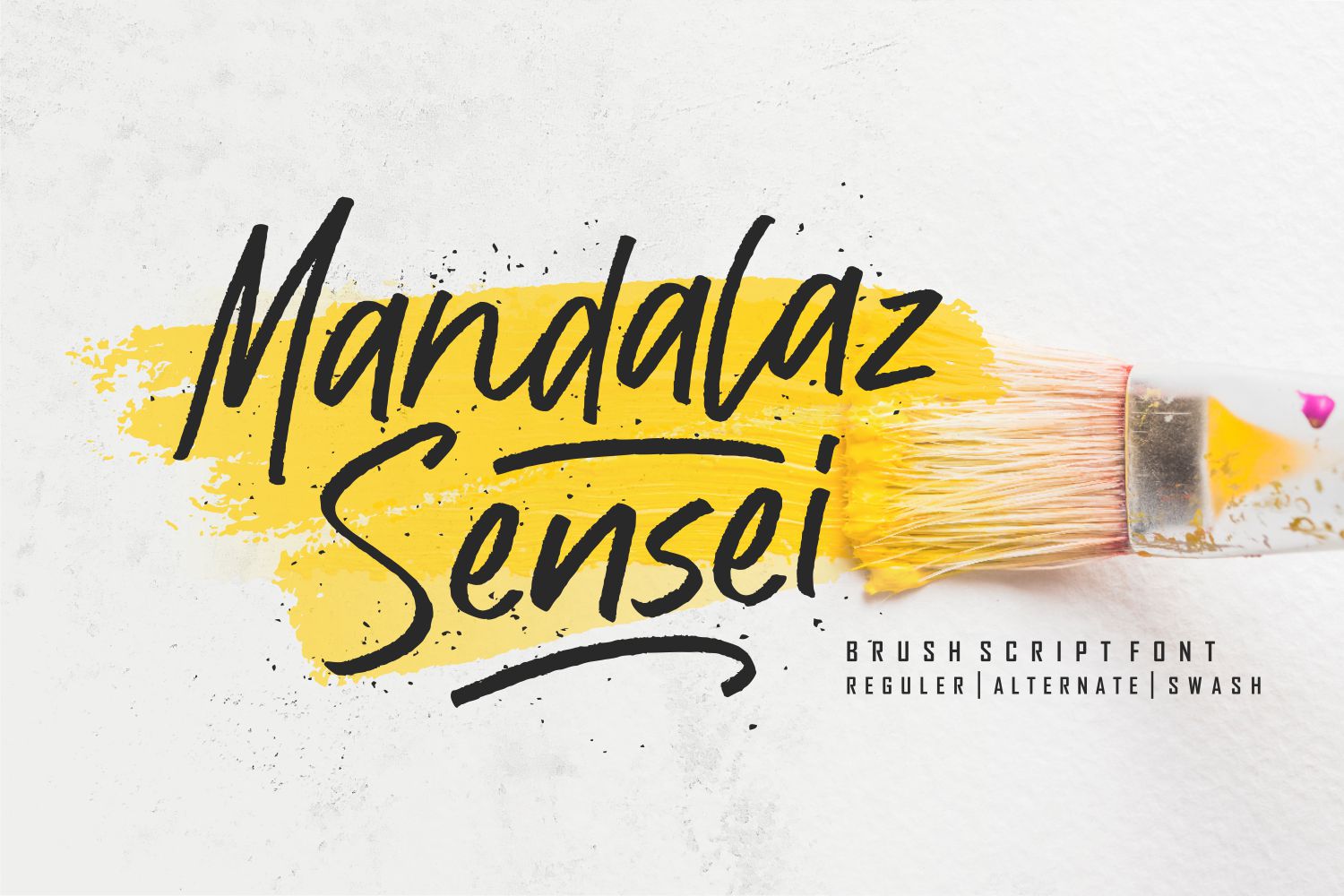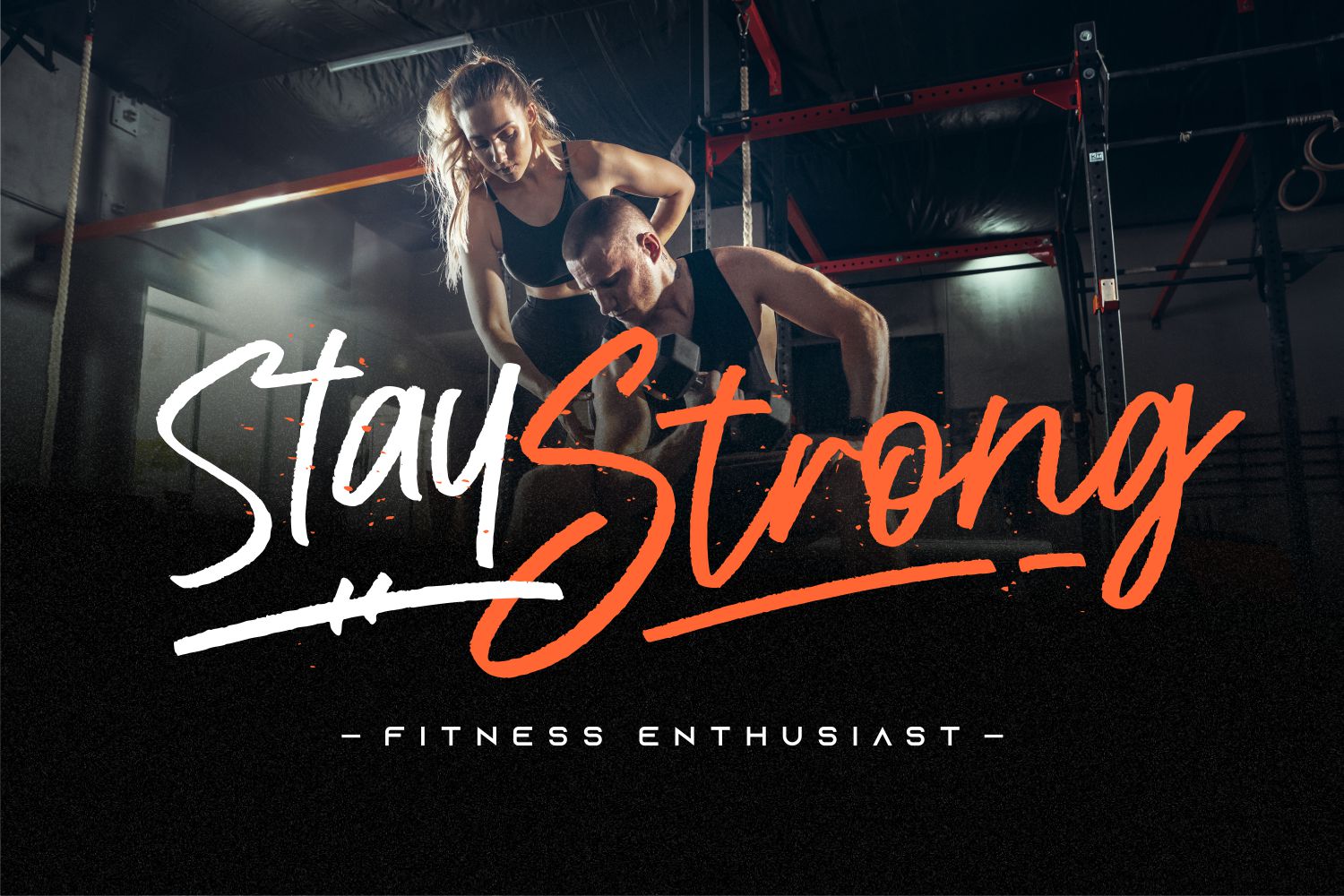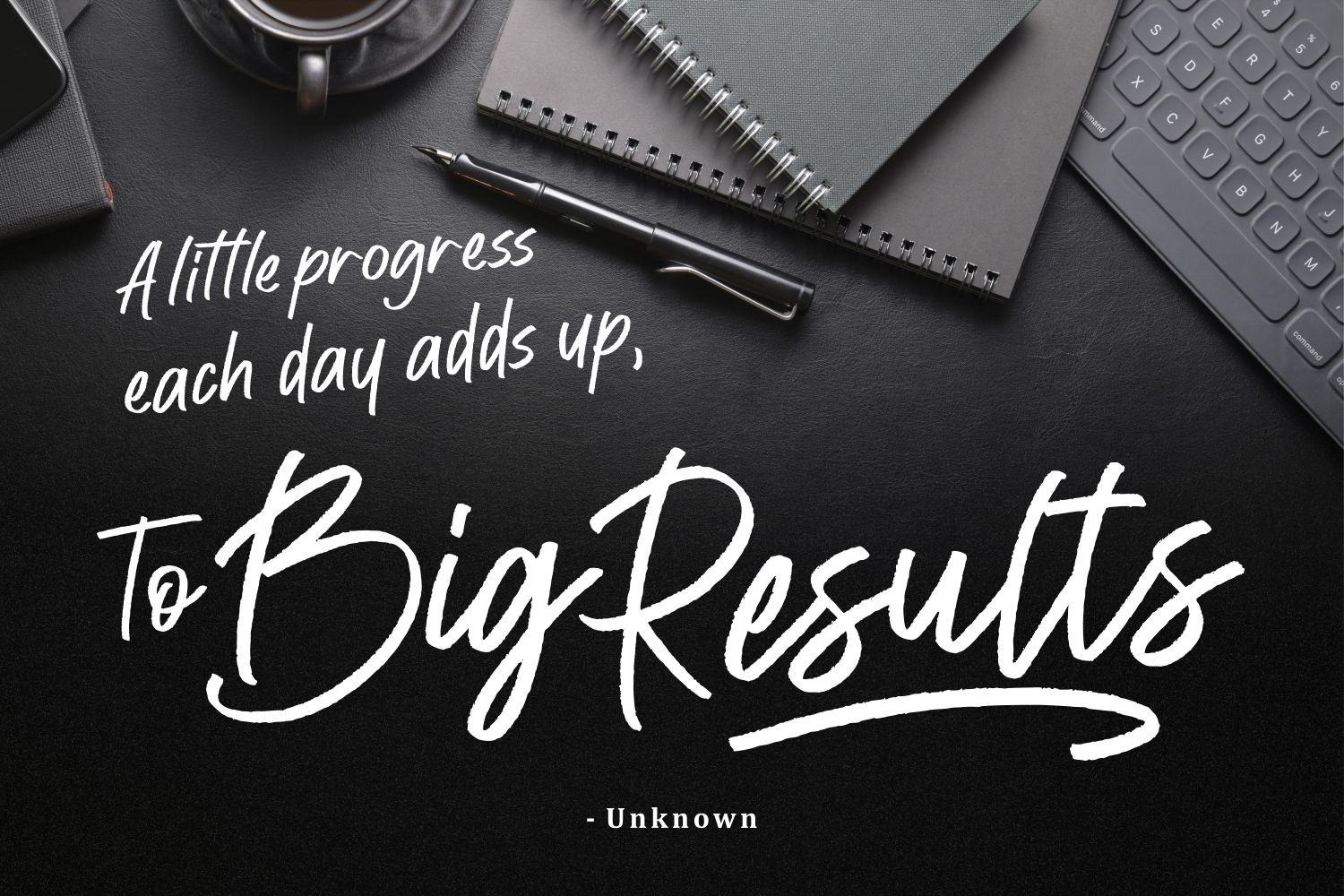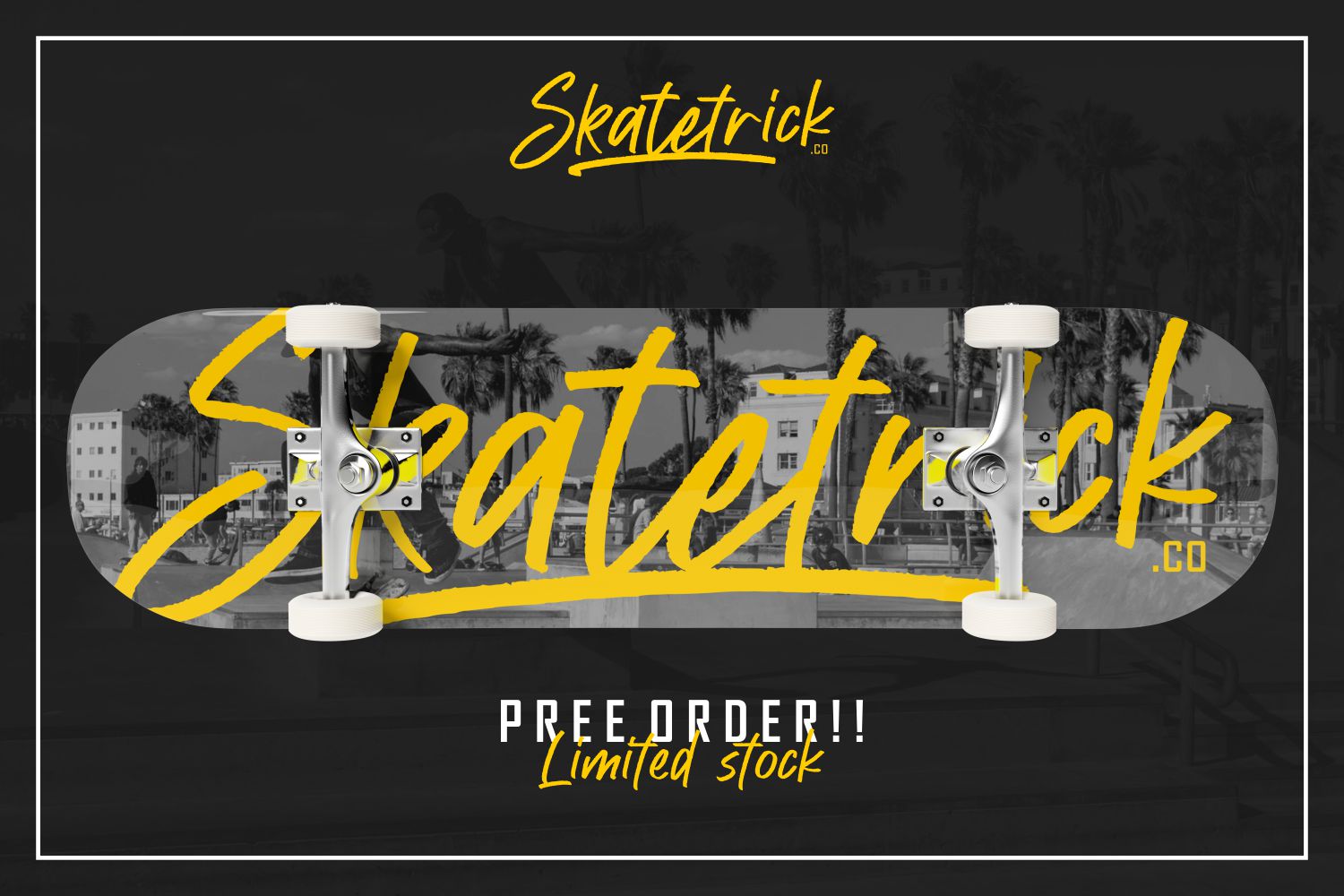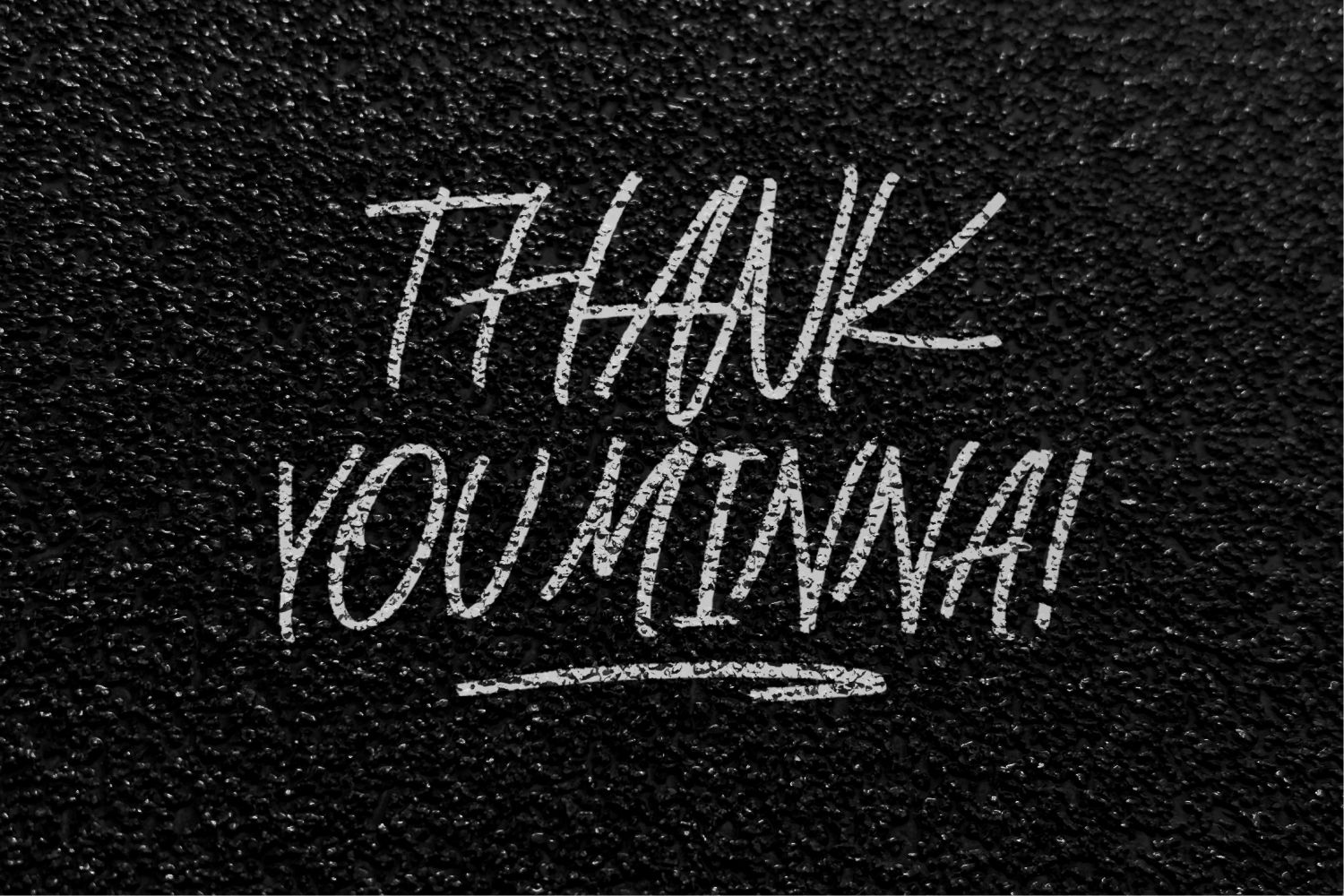
Mandalaz Sensei Free Font
Mandalaz Sensei Free Font is an interesting modern handwritten font that mimics writing with a brush. This font is very suitable for creating various projects that require a script brush font. You can use this font to create memorable posters, wedding invitations, greeting cards, branding, flyers, t-shirt and pillow prints, and more. Improve the quality and increase the popularity of your design projects by using this font. If you like it don’t forget to check out the full version.